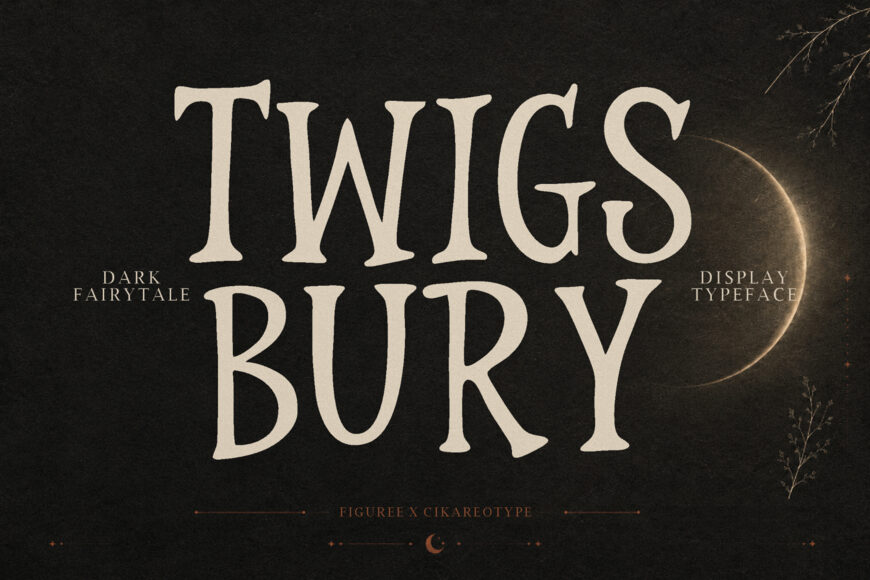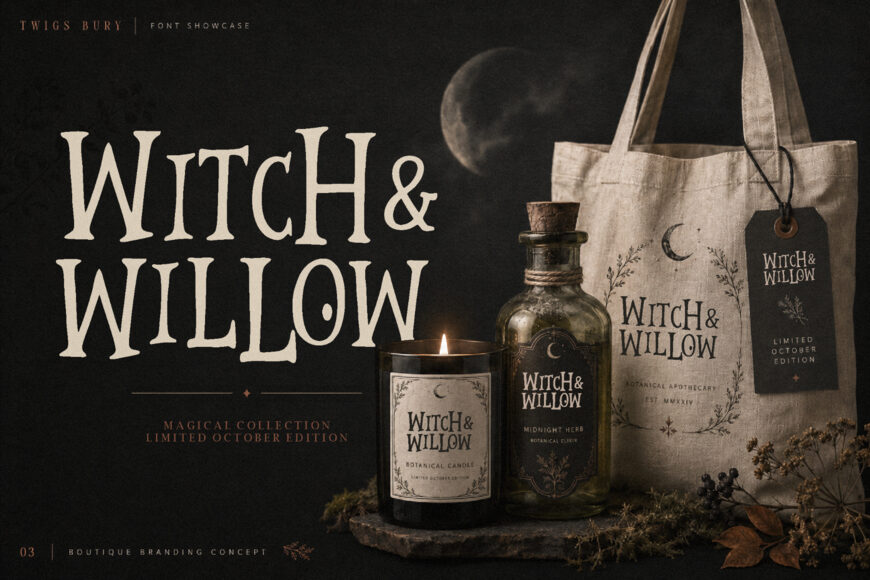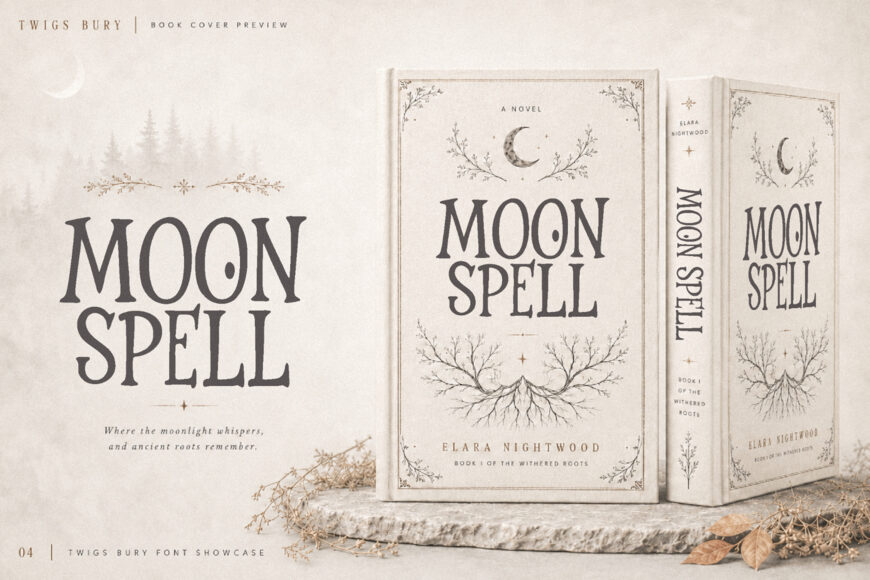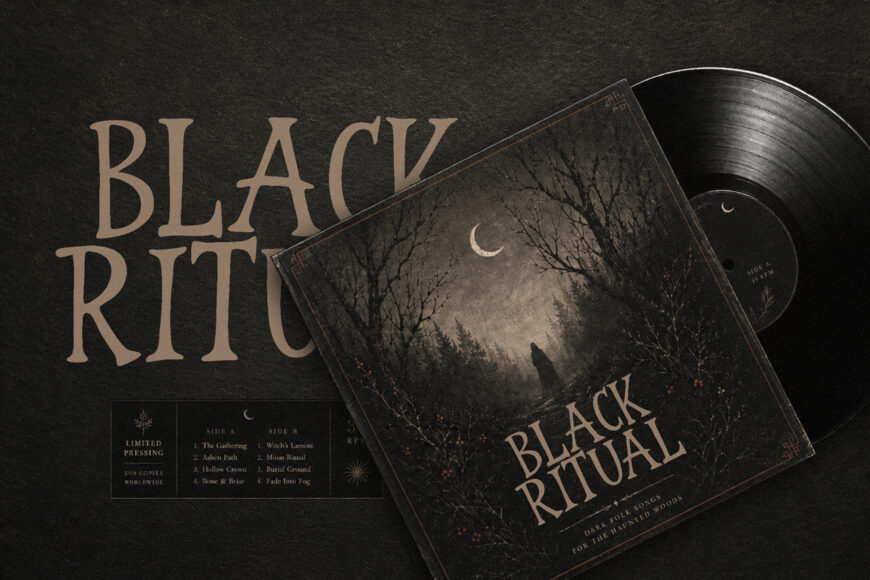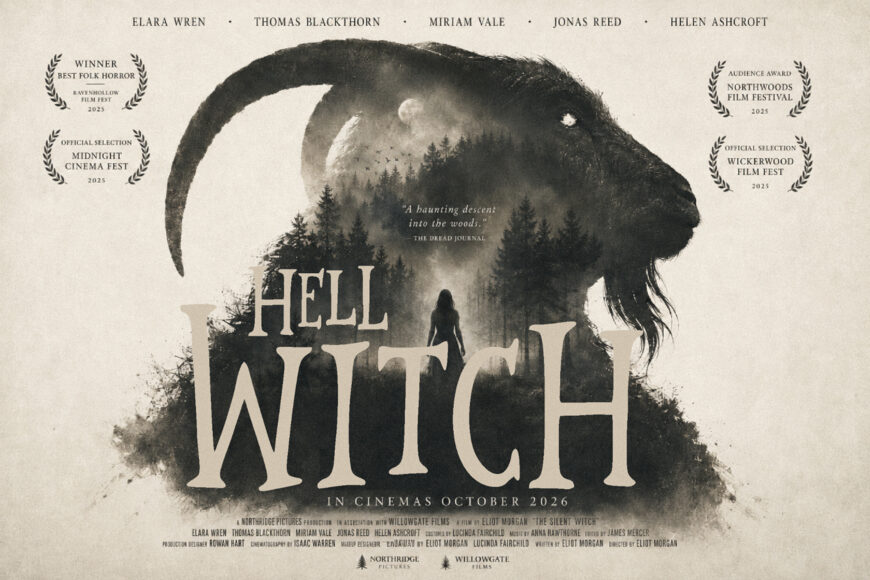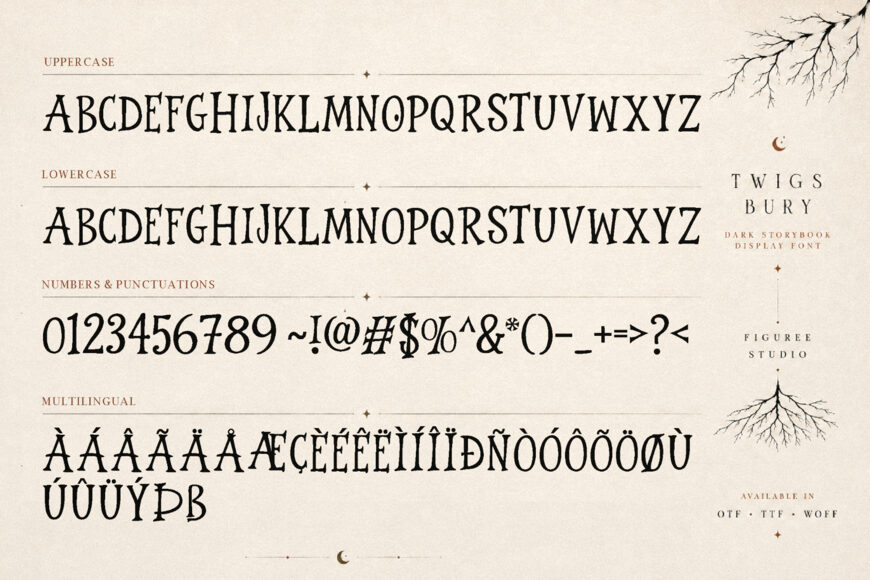
Twigsbury is a dark fairytale serif font created for designs that need mystery, elegance, and a storybook atmosphere. It brings a dramatic serif personality into visual projects that feel enchanted, cinematic, gothic, and slightly untamed.
This font gives your words a narrative quality, making it suitable for brand identities, book covers, packaging, posters, social media graphics, and creative products with a darker visual direction. Twigsbury is a practical choice for both print and digital design. It can help a project feel editorial, magical, mysterious, and premium without losing clarity in key display settings.